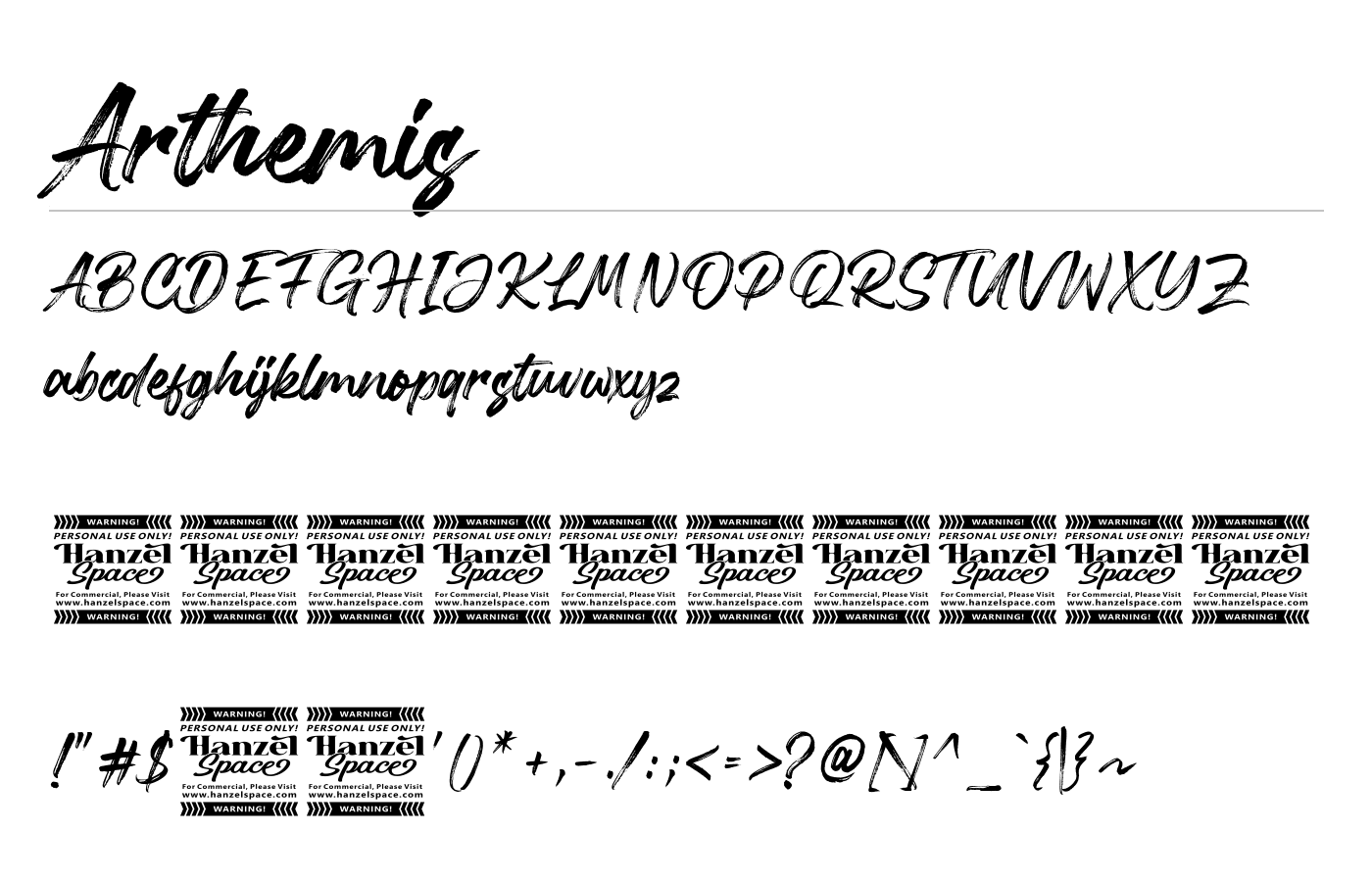
Arthemis is a bold, expressive script font with a hand-painted feel, featuring dynamic brush strokes and a lively texture that adds personality and energy. Its informal, artistic style makes it perfect for creative branding, headlines, and invitations where a personal and vibrant touch is desired. This font stands out in designs that need a fresh, handcrafted look to convey creativity and warmth.
Arthemis Font
About Arthemis Font
| Font family | Arthemis Font |
| Designer | Hanief Farandi |